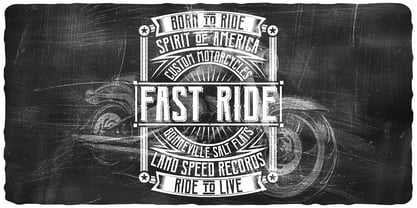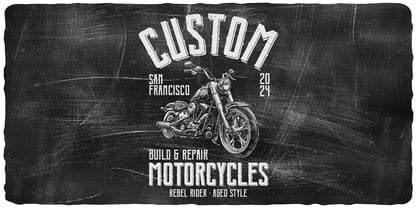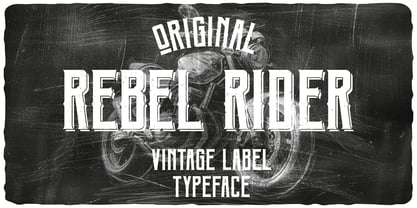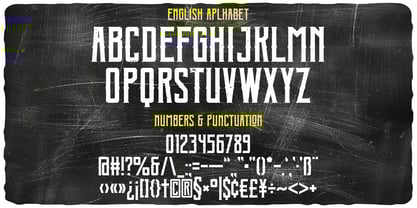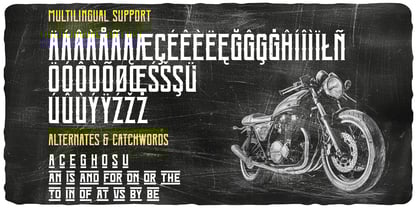
Rebel Rider
by Vozzy
The Rebel Rider Font Family was designed by Oleg Voznyy and published by Vozzy. Rebel Rider contains 4 styles and family package options.
Introducing the original display font "Rebel Rider" – a striking and uniquely handcrafted typeface that brings character to any project. Designed with a strong visual identity, it features extended characters, punctuation, and full multilingual support. Every letter was drawn by hand to create a distinctive, eye-catching look that sets your work apart. Perfect for posters, flyers, branding, apparel, and more, this font adds a creative edge wherever it’s used. "Rebel Rider" is all about making your message stand out with style.
Designers: Oleg Voznyy
Publisher: Vozzy
Foundry: Vozzy
Design Owner: Vozzy